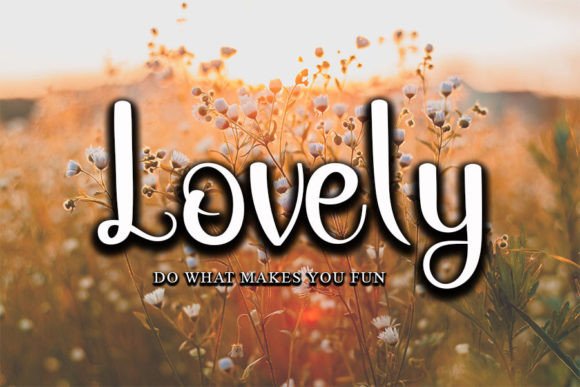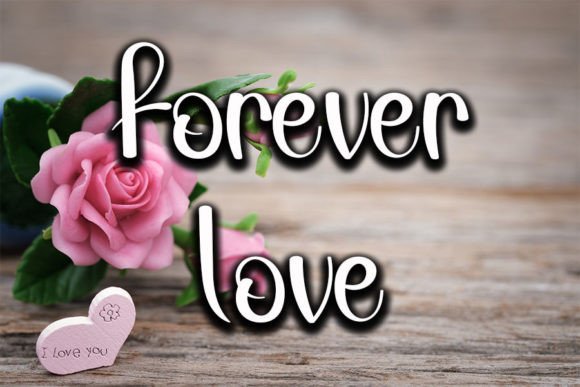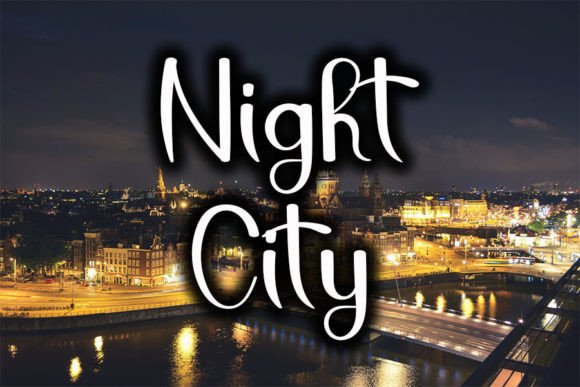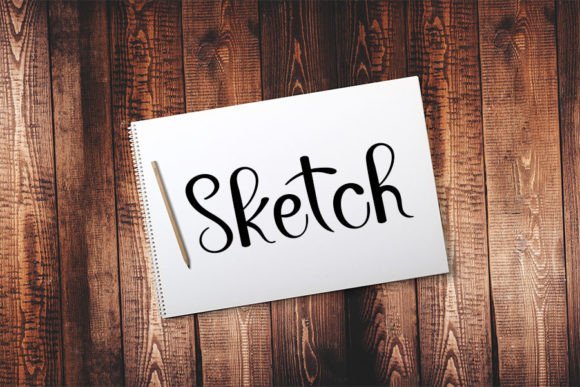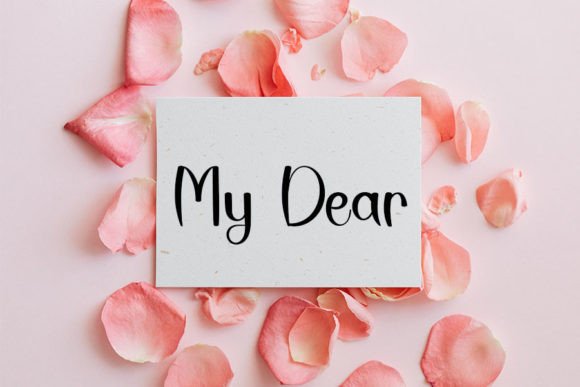
Introduction to Magic Kids Font
Magic Kids is a slim and delicate handwritten font.
Dainty and joyful, this font will be ideal for writing wedding invitations, cards, or any other design that may need a romantic, personalized touch .